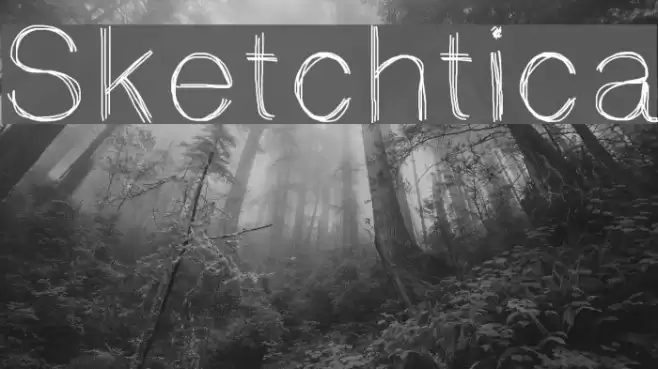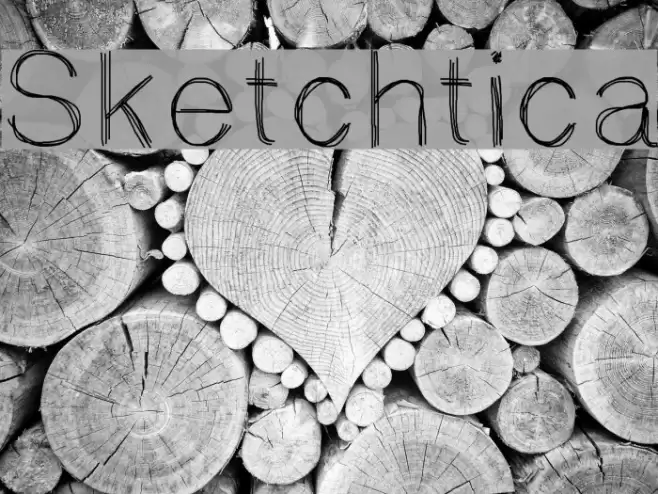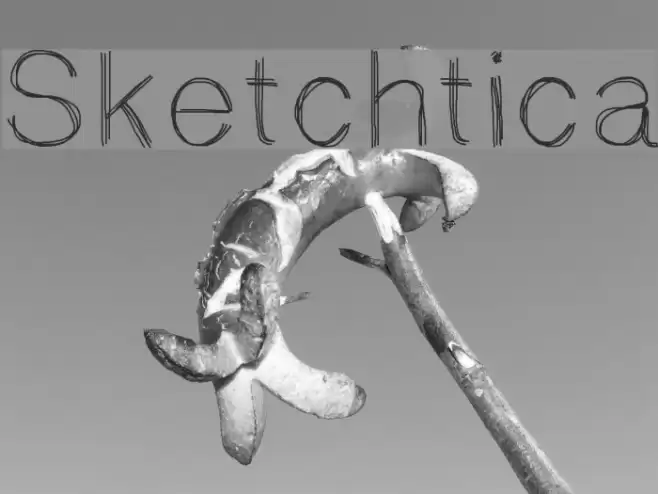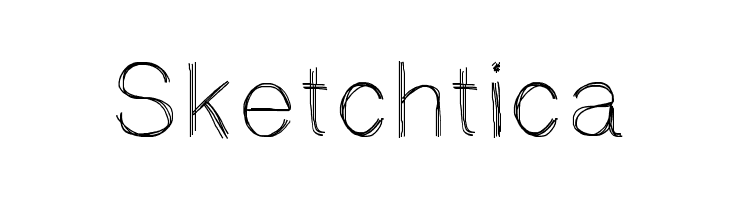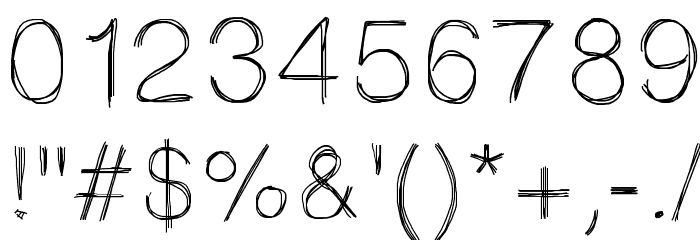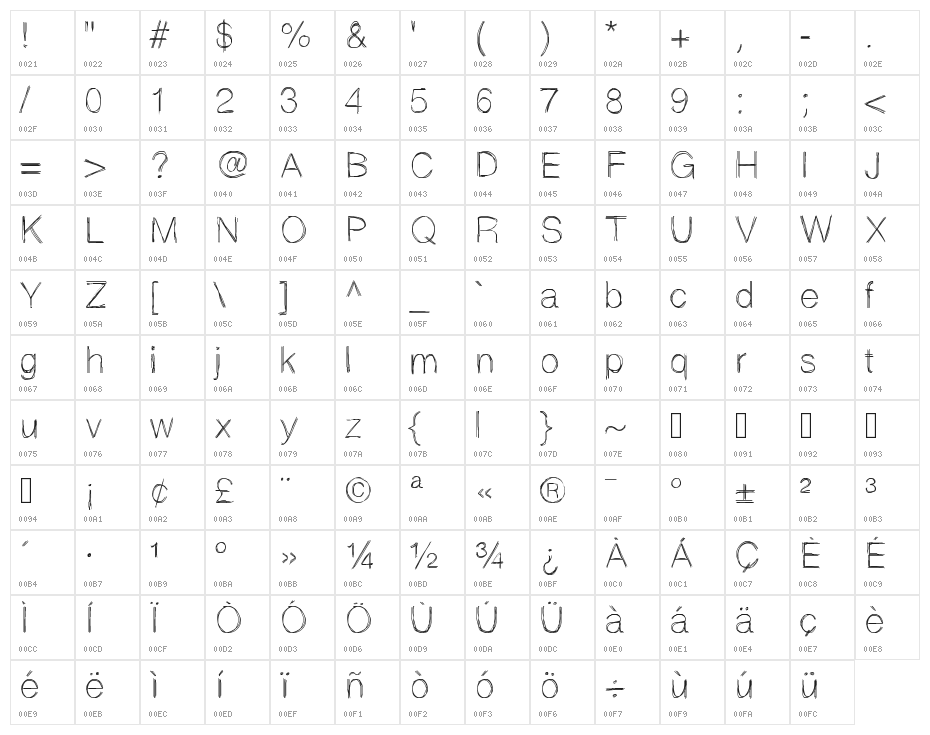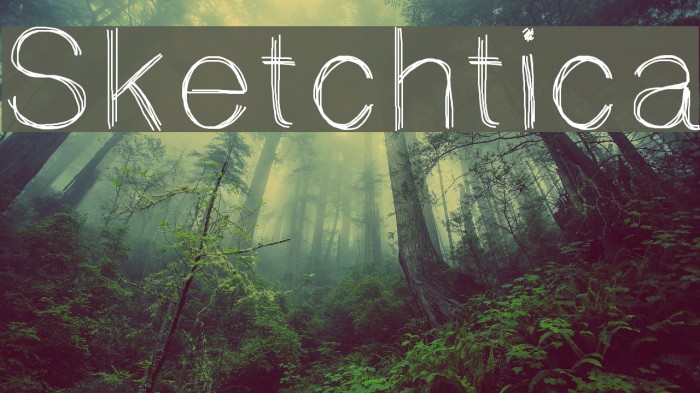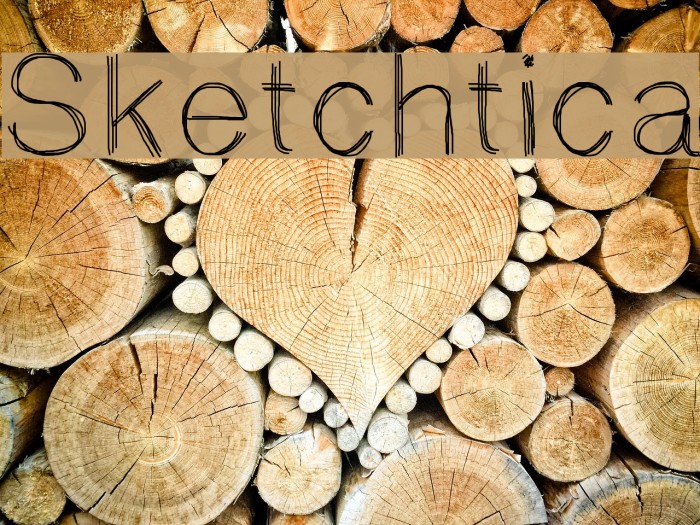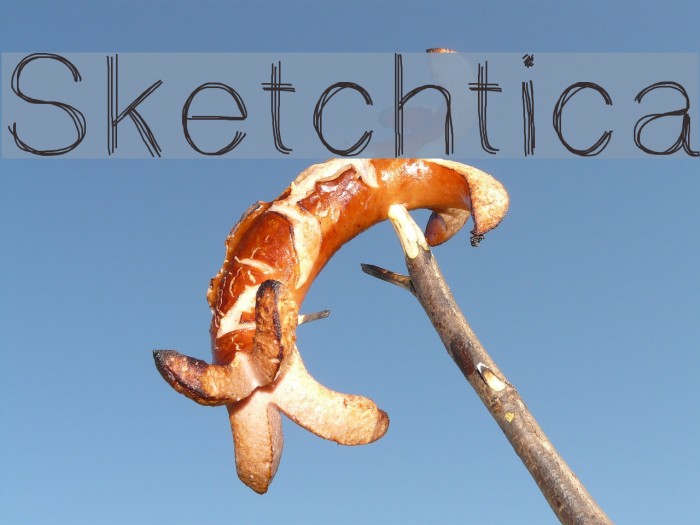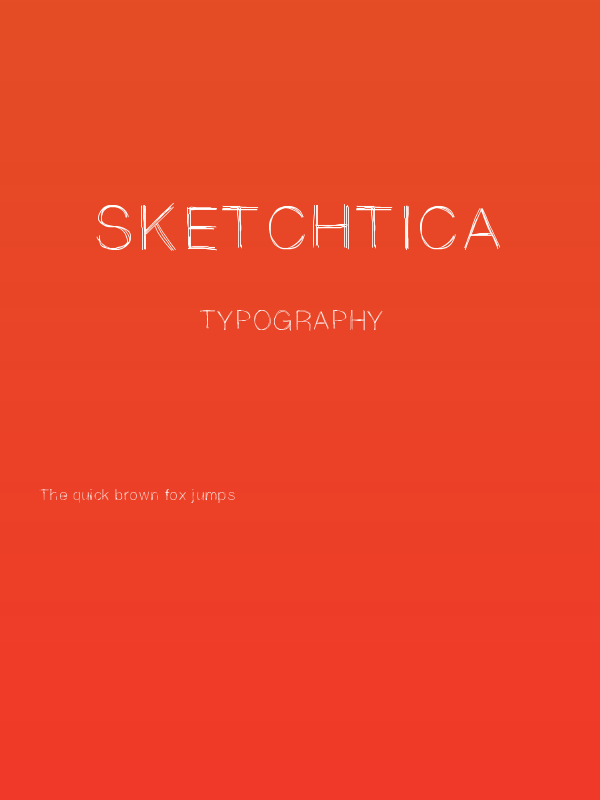
Sketchtica Font
Sketchtica Description
This font features a hand-drawn, sketch-like appearance, characterized by uneven lines and a playful, artistic style. Each character appears as if it has been drawn with a pen or pencil, giving it a unique, organic feel. The strokes are irregular, with some lines appearing thicker or thinner, adding to the casual and informal aesthetic. The font maintains legibility while offering a creative and whimsical touch, making it suitable for projects that require a personal or artistic flair. The overall design is both approachable and distinctive, making it ideal for creative projects.
A sketch-like, hand-drawn font with an artistic and playful style from Script fonts.
- Proposed Projects: Ideal for greeting cards, children's books, artistic posters, and creative branding.
- Use Case: Headlines, Logos, Artistic projects